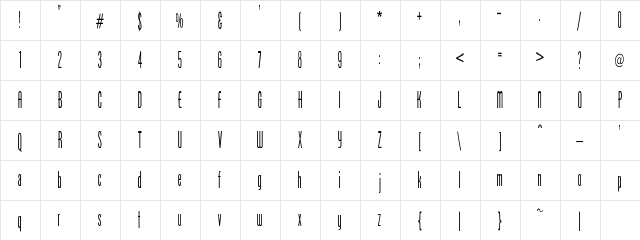
Octavian-Normal Regular
Design Context for Octavian-Normal Typeface
Octavian-Normal takes a measured approach to typography — its balanced proportions and neutral character make it a reliable workhorse for both digital and print work.
Pro Tip: Use Octavian-Normal in both headline and body roles to test its range before committing to a single application.